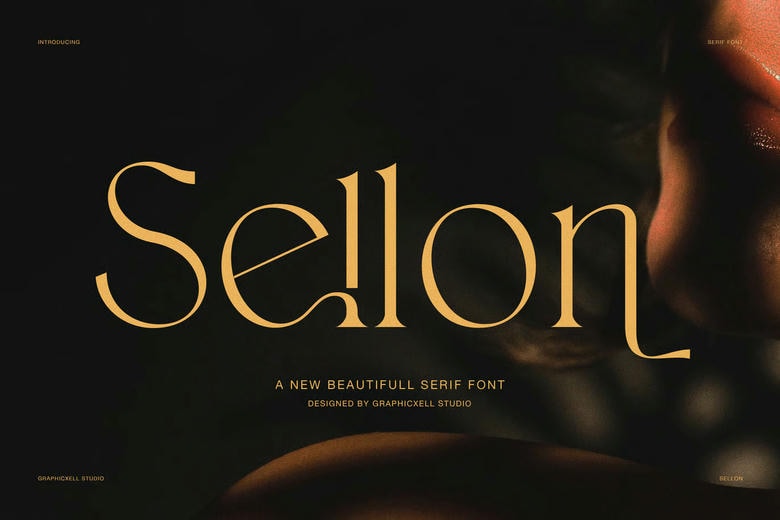
Sellon Font
Sellon is a beautiful serif font designed by designers who believe in balance, readability as well as confidence. It is a mixture of the traditional serif and tender, contemporary lines that render its words polished and deliberate. Such balance is what makes Sellon perfect in luxury brands, editorial layouts, and mindful visual storytelling.
In addition, Sellon provides the nuanced alternative characters that do not overwhelming the design. Consequently, titles and brand names look natural and gracious. Meanwhile, the primary letterforms are clear and readable, even in a lengthy text. Hence, the typeface can be used in display typography and also in the associated content.
Moreover, Sellon serves a broad assortment of upper end design domains. As an example, it is ideal in interior design studios, furniture brands, fashion brands, and lifestyle magazines. It can also be used in beauty campaigns, hotel branding, architecture presentations and edited social media images. The layouts are friendly, relaxed and business-like since the contrast is soft and controlled.